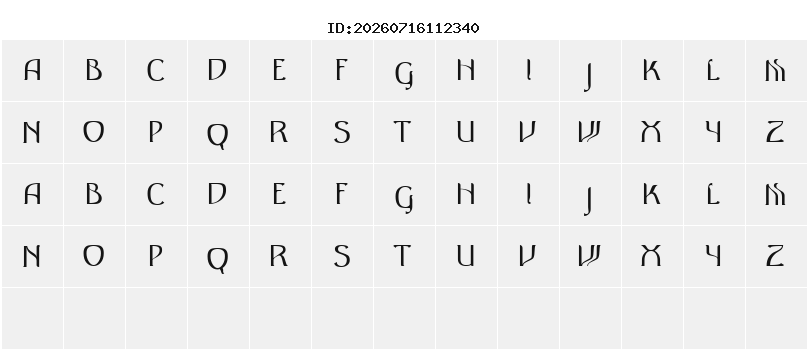
• Font Name: Antique
• Full Font Name: Antique Regular
About Antique.ttf
Antique.ttf is a modern, elegant sans-serif font designed for ultimate readability and visual harmony. Perfect for branding, headlines, web design, and print materials.